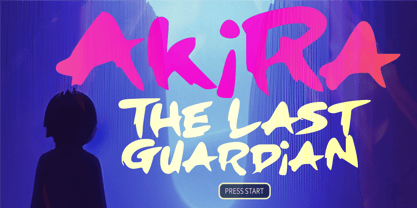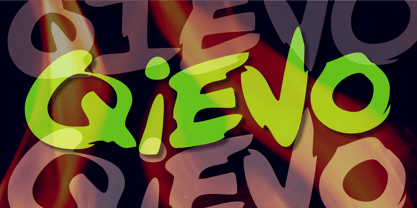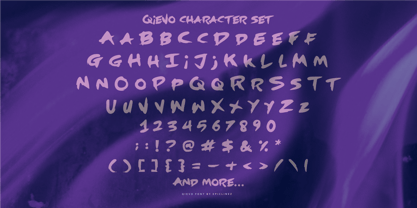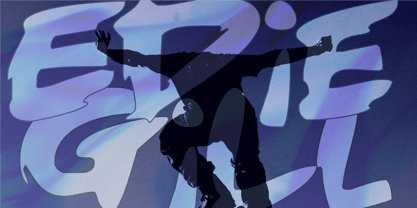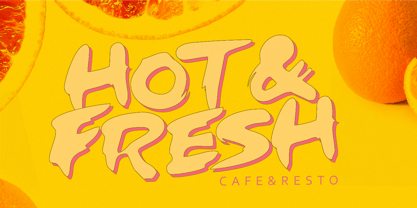
Qievo
par Epiclinez
La famille de polices Qievo a été conçue par Aldy Sidik et publiée par Epiclinez. Qievo contient 1 styles. En savoir plus sur cette famille
Unleash raw energy and artistic flair with Qievo, an ultra-expressive, bold brush font designed to make a statement. Crafted with high-fidelity, organic textures and striking, sweeping strokes, Qievo captures the spontaneous motion of a real ink brush. Each character is infused with personality, seamlessly blending contemporary streetwear aesthetics with classic calligraphy. Whether you are designing aggressive branding, standout packaging, cinematic posters, or high-impact merchandise, Qievo delivers a commanding visual presence that demands attention. Its robust weight ensures excellent legibility at large sizes, while its fluid, dynamic rhythm imparts a living, breathing energy to your text.
Concepteurs: Aldy Sidik
Fonderie: Epiclinez